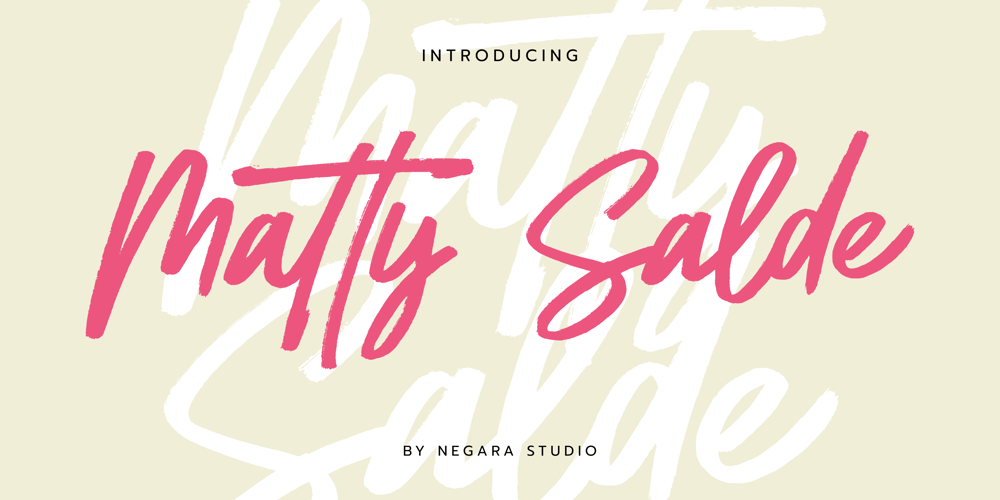
Matty Salde
Matty Salde font
Matty Salde Font Family was designed by Anugerah Negara and published by Negara Studio. Matty Salde contains 1 styles and family package options. Introducing Matty Salde! Is a script font. Written with a marker dipped in ink. With 33 ligatures. We write at a moderate speed so as to produce a solid brush effect.Matty Salde Features: Upper & lowercase characters, numerals, a large range of punctuation and Language Support. 33 ligatures are included for lowercase letters (see image). Matty Salde great for use on larger sizes.I just wanted to let you know that Matty Salde is our first script font.~ Anugerah